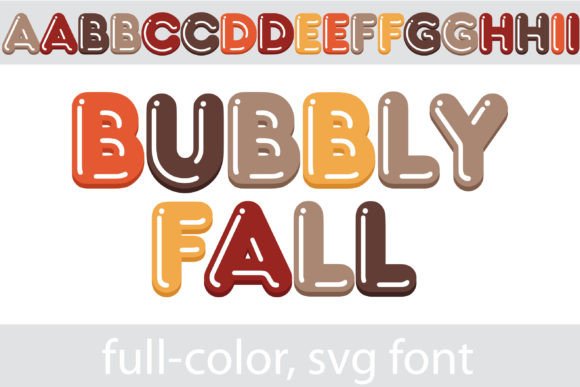
Bubbly Fall Font: Add a Touch of Personality to Your Designs with this Playful Autumn Font
Are you looking for a unique and playful font to add a touch of personality to your designs? Look no further than the Bubbly Fall Font, a full-color font that features highlighted lettering in an autumn color palette. This font is perfect for designers who want to create eye-catching text logos, illustrations, and other designs that showcase their creativity.
What is Bubbly Fall Font?
Bubbly Fall Font is a full-color font that features playful, bubbly, highlighted lettering in an autumn color palette. The font includes an alt version of each letter in a different color, which can be accessed through your system character map. This means that you can use the font to create a wide range of designs, from simple text logos to complex illustrations.
Key Features of Bubbly Fall Font
- Full-color font: Bubbly Fall Font is a full-color font that features highlighted lettering in an autumn color palette.
- Playful and bubbly design: The font has a playful and bubbly design that is perfect for creating eye-catching designs.
- Alt version of each letter: The font includes an alt version of each letter in a different color, which can be accessed through your system character map.
- Vector-based: The font is vector-based, which means that it can be scaled to any size without losing quality.
Tips for Using Bubbly Fall Font
Here are some tips for using Bubbly Fall Font in your designs:
- Use it for headings and titles: Bubbly Fall Font is perfect for headings and titles, where you want to make a bold statement.
- Experiment with different colors: The font includes an alt version of each letter in a different color, so feel free to experiment with different colors to create a unique look.
- Use it for logos and branding: Bubbly Fall Font is perfect for creating logos and branding materials that need to stand out.
- Scale it up or down: Because the font is vector-based, you can scale it up or down without losing quality.
Benefits of Using Full-Color SVG Fonts
Full-color SVG fonts, like Bubbly Fall Font, offer a range of benefits, including:
- Increased creativity: With a full range of colors and styles to choose from, you can create unique and eye-catching designs.
- Scalability: Because SVG fonts are vector-based, they can be scaled to any size without losing quality.
Bubbly Fall Font is a unique and playful font that can add a touch of personality to your designs. With its full-color design, alt version of each letter, and vector-based format, it’s perfect for creating eye-catching text logos, illustrations, and other designs. Whether you’re a professional designer or just starting out, Bubbly Fall Font is a great choice for anyone looking to add some creativity to their designs.